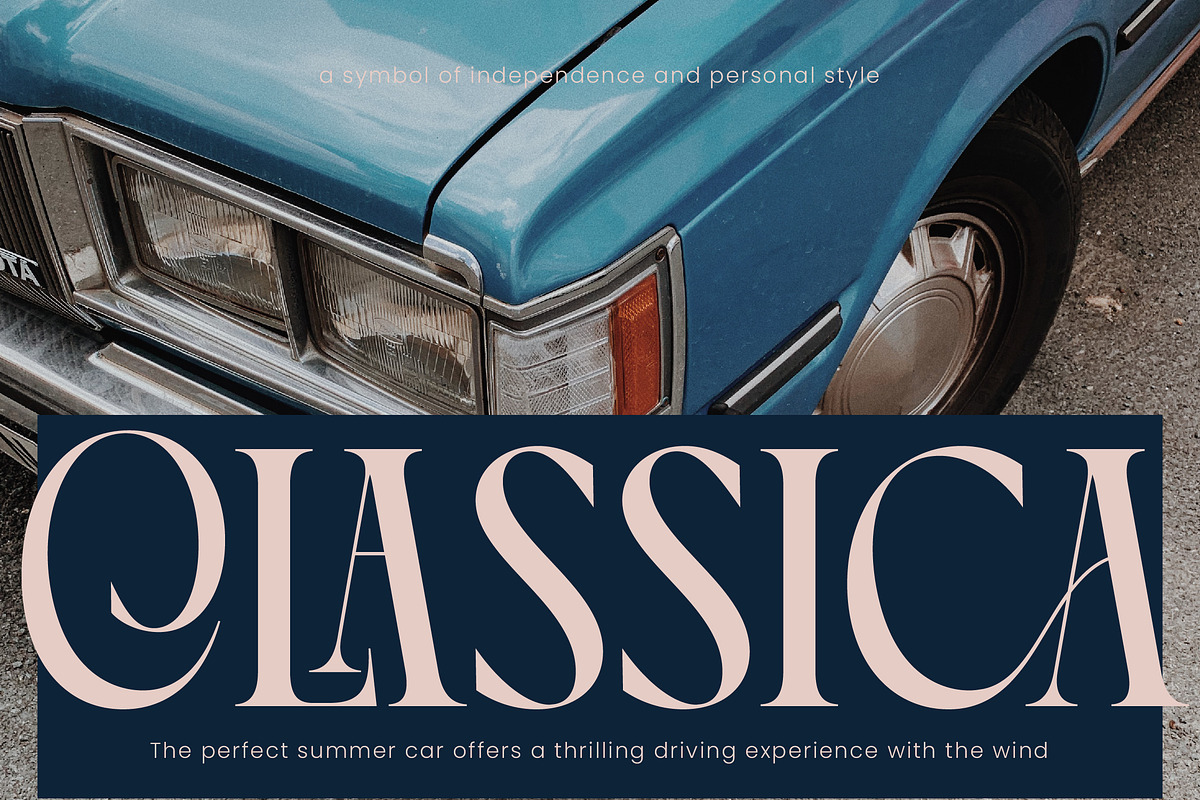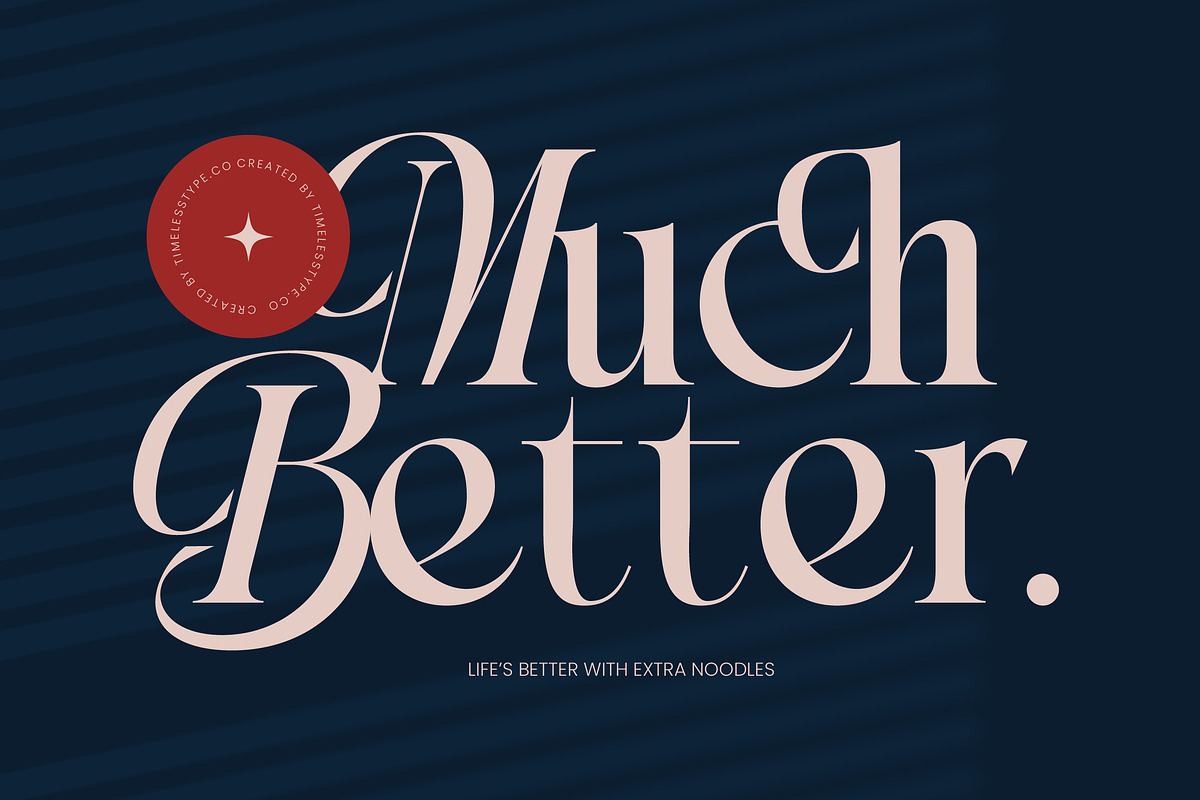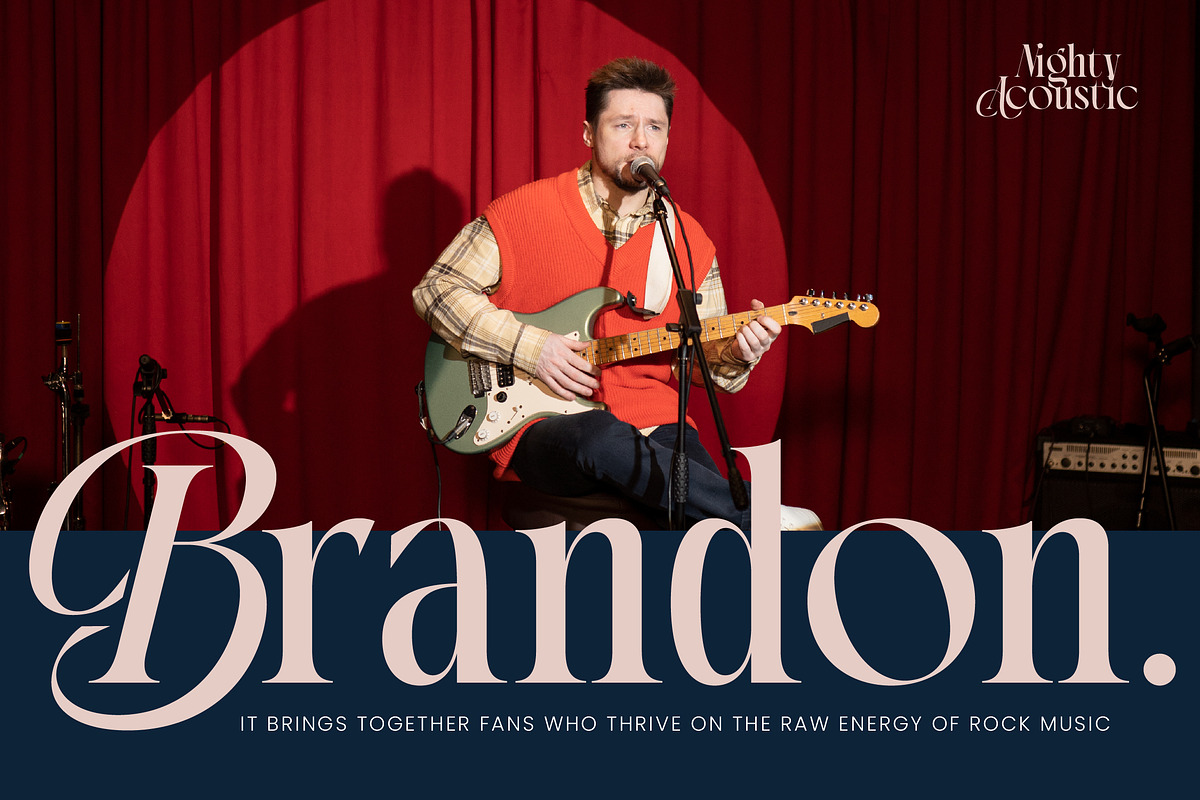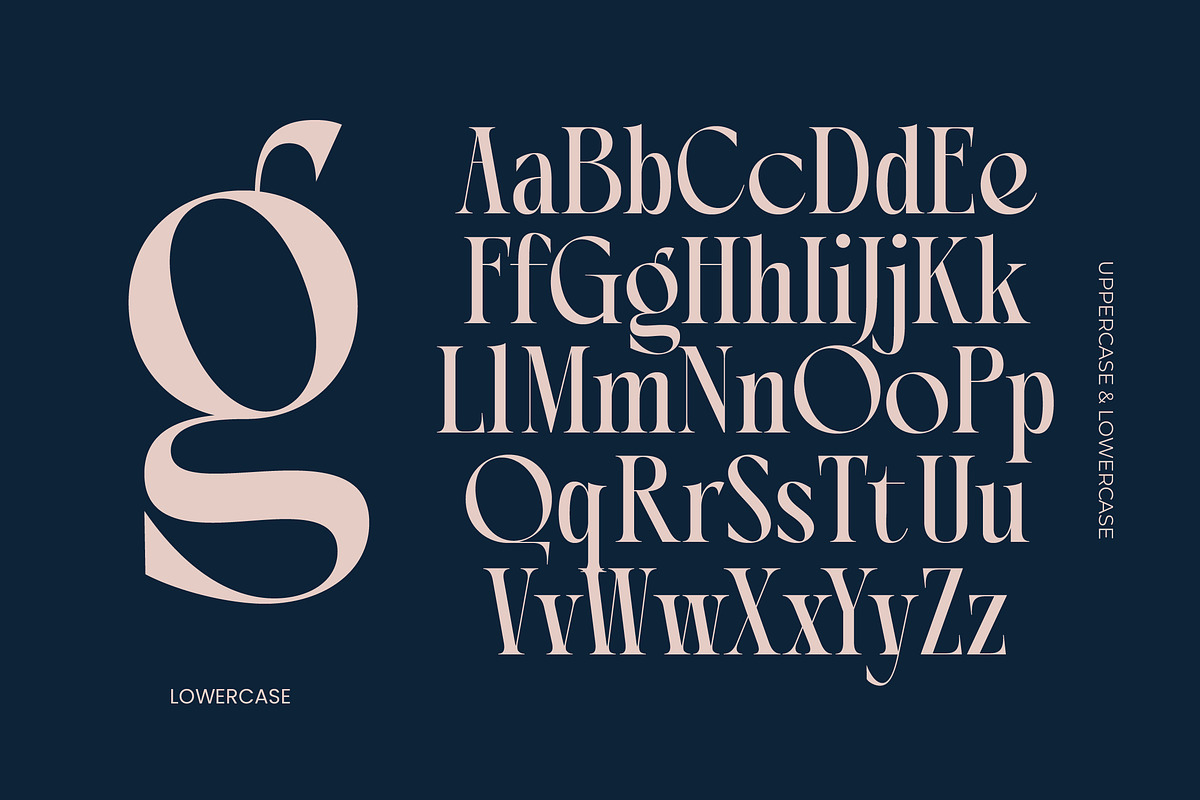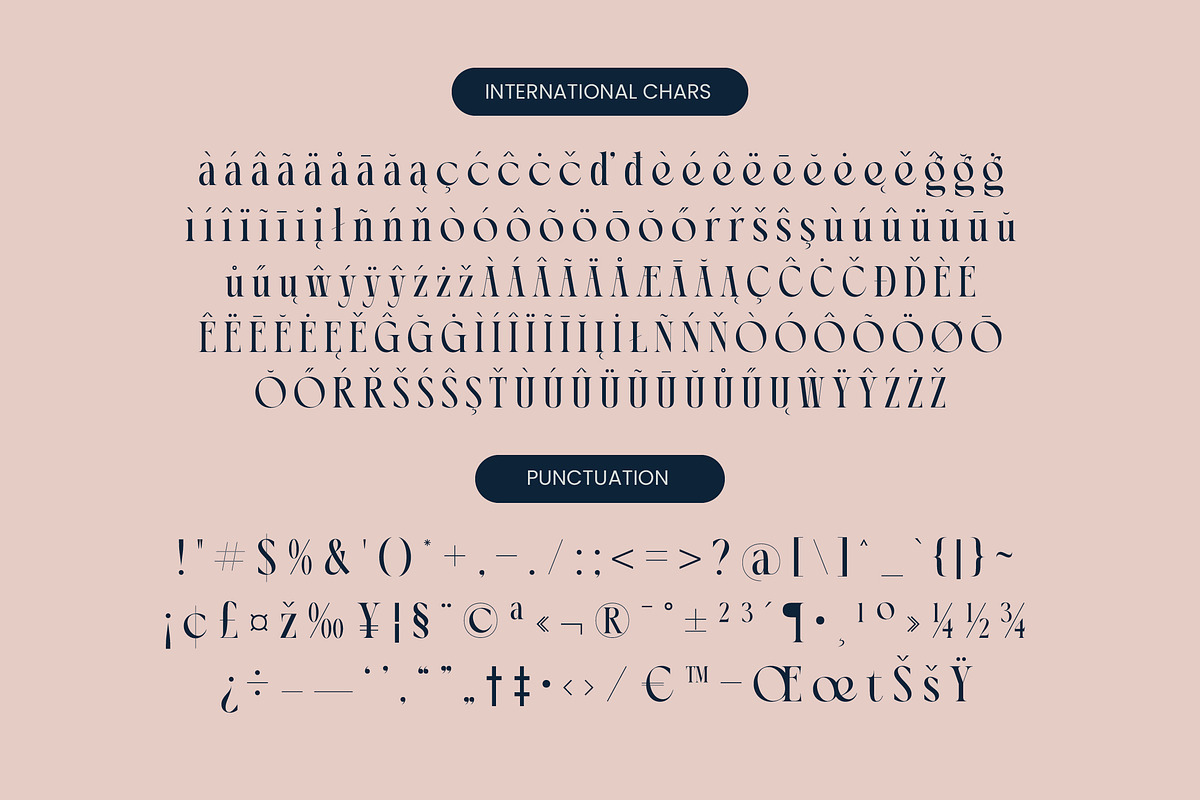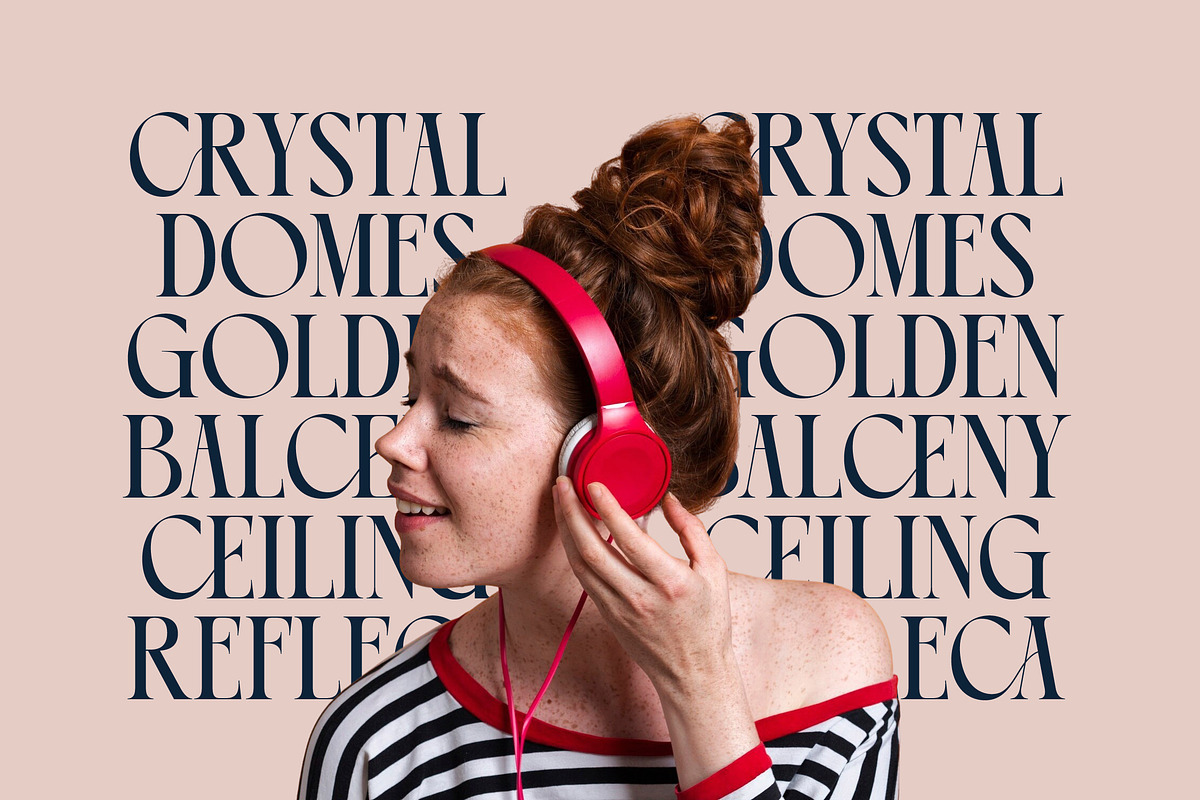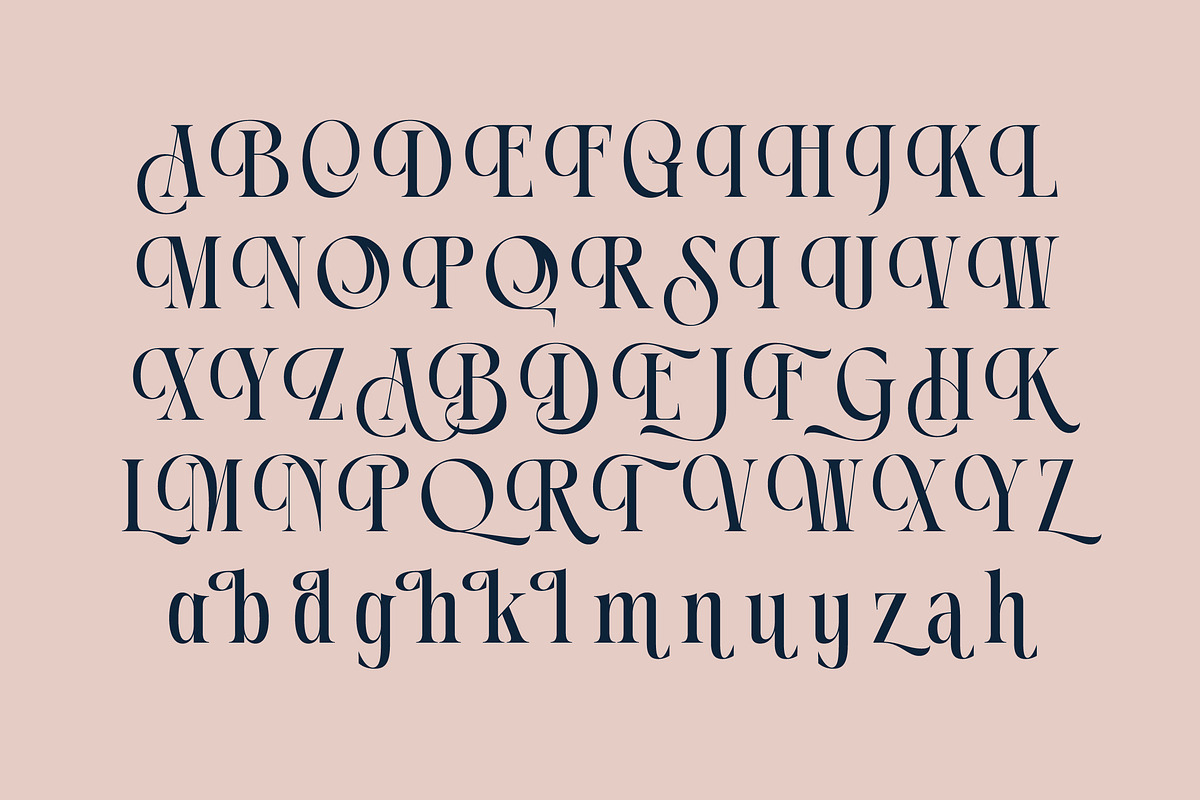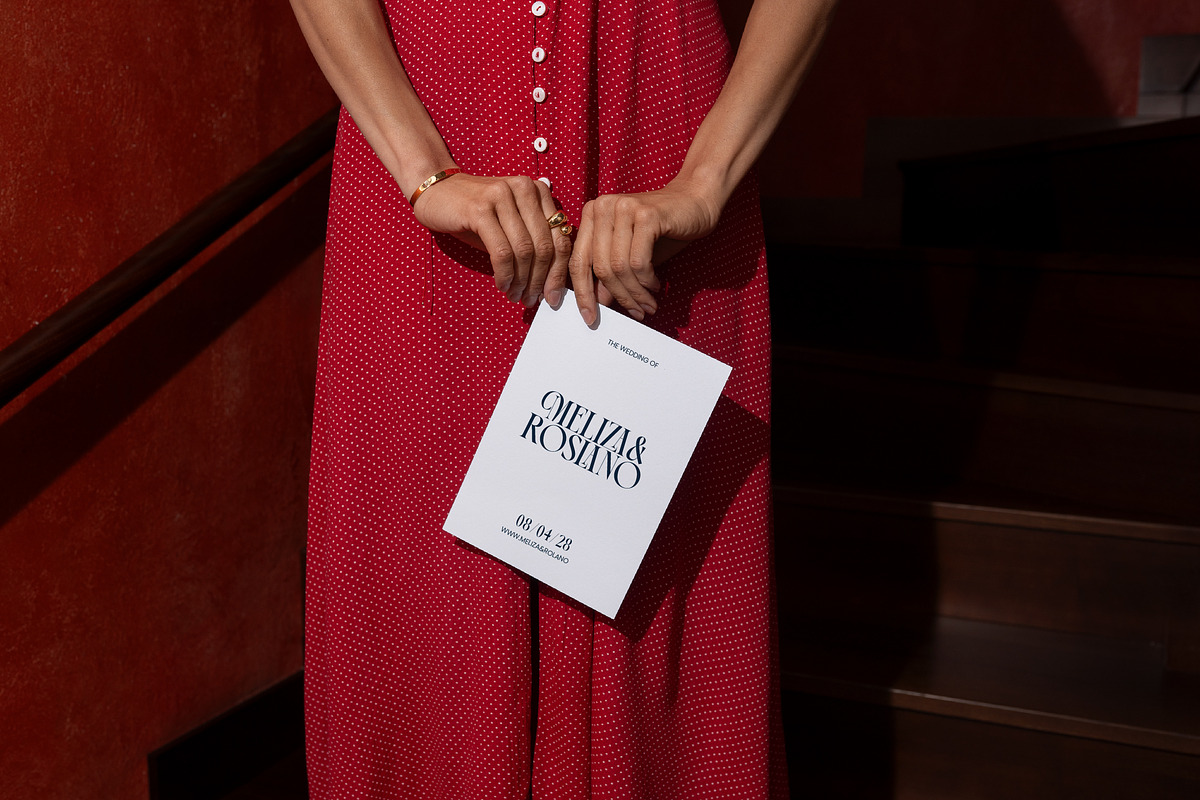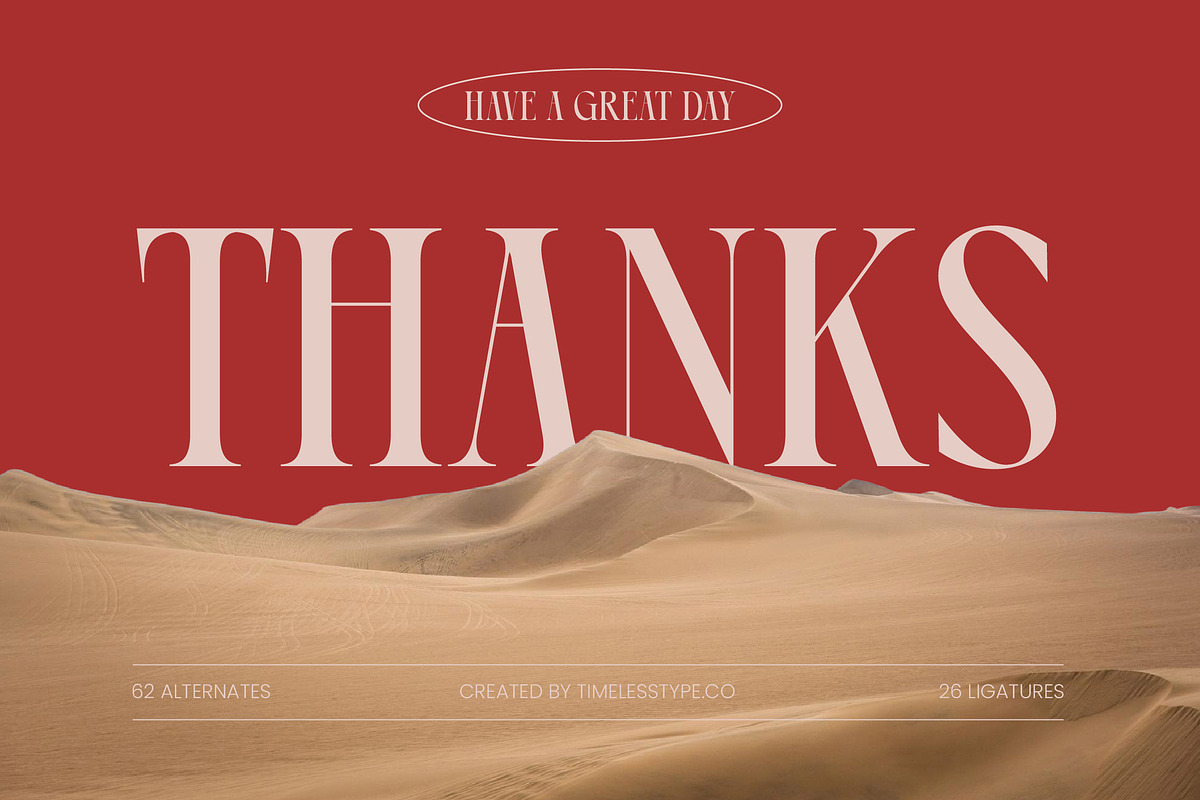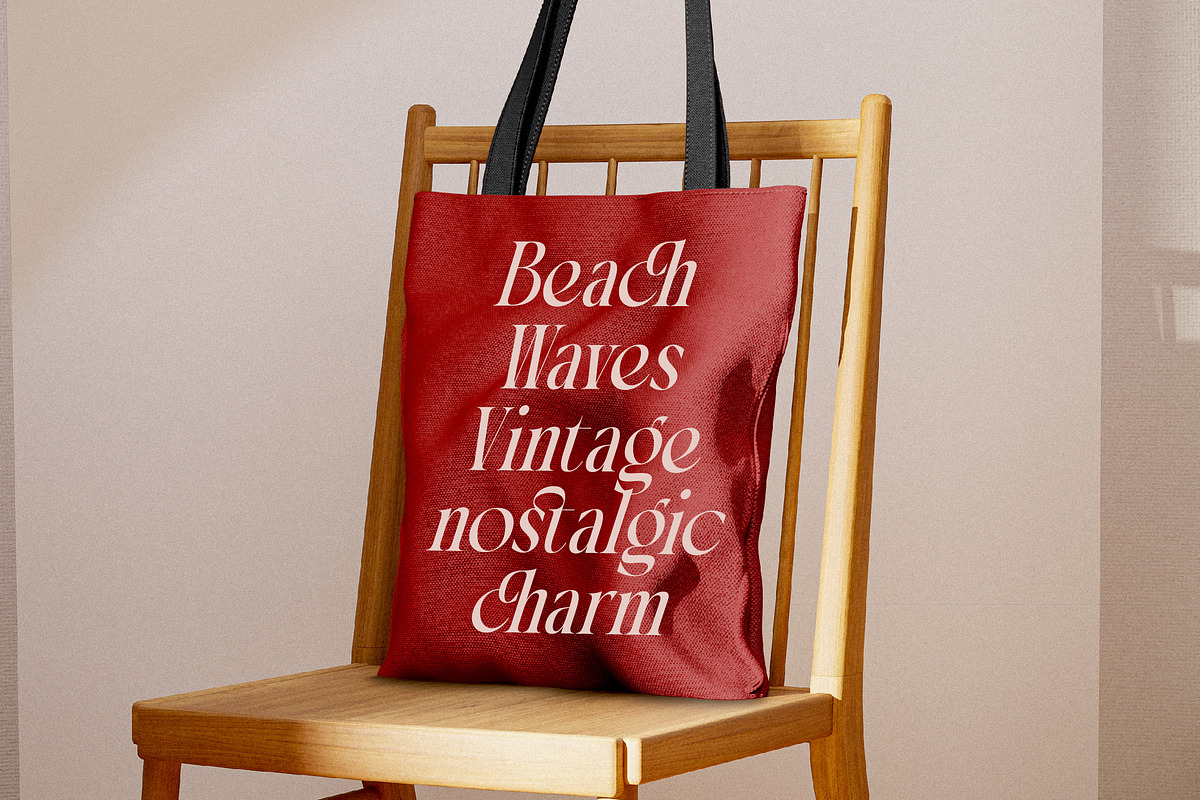
Chonza Modern Luxury Serif Font
Chonza is a masterclass in modern elegance, meticulously crafted to bring a touch of timeless sophistication to every design canvas. This typeface transcends ordinary lettering, offering a visual symphony of sharp contrasts and fluid curves that demand immediate attention.
Inspired by the intersection of classic Roman proportions and contemporary fashion aesthetics, this font captures a unique sense of atmospheric luxury. It mirrors the shadows and highlights of a high-end boutique, blending traditional structure with a daring, avant-garde spirit.
The soul of this typeface lies in its ability to deliver a powerful branding impact, making it a quintessential luxury typography choice for elite projects. As a modern serif display, it balances a high-contrast serif look with the refined grace of an editorial font designed for professional excellence.
Perfectly aligned with the current modern serif trend, this typeface fulfills the growing demand for character-driven typography in a digital-first world. Designers seeking top-tier editorial display fonts will find its unique silhouettes essential for staying ahead of global style movements.
This versatile tool is engineered for high-end logo design and comprehensive branding identity systems that require a distinct, memorable voice. It shines brilliantly in editorial layouts, luxury packaging, romantic wedding stationery, and fast-paced fashion lookbooks.
Unlock a world of creative possibilities with a rich set of 26 unique ligatures and 62 expressive alternates that allow for custom-tailored letterforms. Complete with full international characters and multilingual support, it ensures your message reaches a global audience with flawless technical precision.
- Ligature 26 Alternate 62